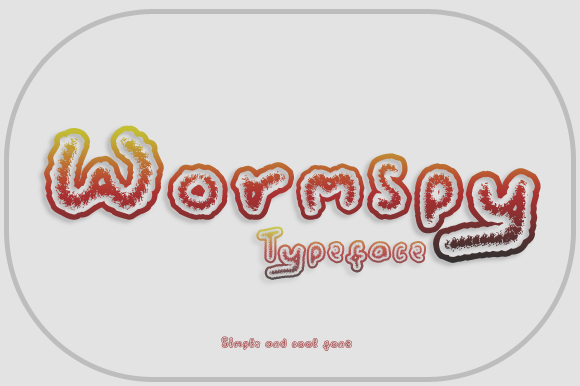
**Unleash Your Inner Artist with Wormspy: The Enchanting Decorative Font That Will Captivate Your Designs**
Prepare to be mesmerized by Wormspy, a decorative display font that will transform your creative projects into captivating masterpieces. Its intricate curves and enchanting glyphs will weave a spellbinding aura, leaving an unforgettable impression on all who behold it.
Immerse yourself in a realm of limitless possibilities as Wormspy lends its magical touch to your designs. Adorn your branding with a touch of timeless elegance, craft captivating headlines that dance off the page, or weave enchanting stories that will transport readers to distant lands.
With Wormspy, every letter becomes a work of art, a testament to the boundless imagination of its creator. Its versatility knows no bounds, lending itself effortlessly to a myriad of design styles. From whimsical invitations to eye-catching posters, from enchanting logos to captivating social media posts, Wormspy will elevate your creations to new heights.
Let your creativity soar as Wormspy becomes your loyal companion, inspiring you to craft designs that resonate with emotion and leave a lasting impact. Its enchanting presence will transform your projects into captivating works of art, leaving an indelible mark on the hearts and minds of your audience.
So, embrace the allure of Wormspy, and let its enchanting charm ignite the fire of your creativity. Download it today and embark on a journey of limitless artistic expression. Let Wormspy be your guide as you weave a tapestry of visual wonders that will enchant and inspire for years to come.